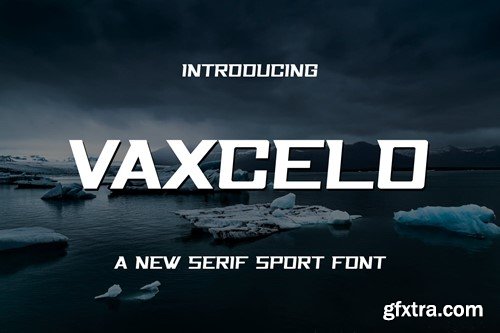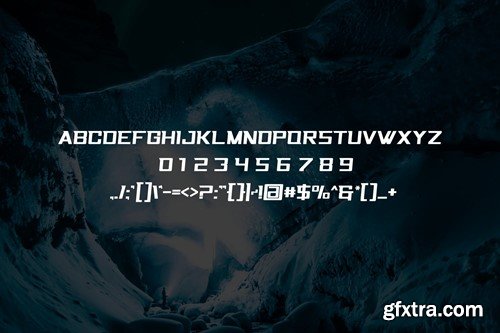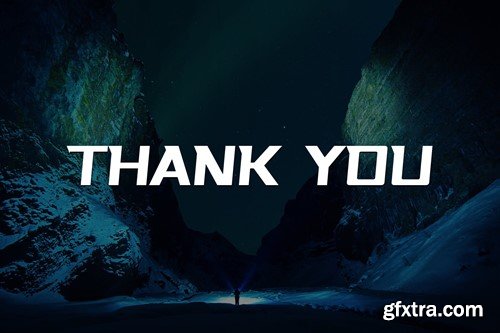
瓦克索尔字体 9YY38WA
Vaxcelo Font 9YY38WA
Vaxcelo Font
Introducing our new product Vaxcelo Font
• Very suitable for flyer, posters, novel, letterhead, or any design requirements that you want to be awesome. ____________________________________________________________________________________________